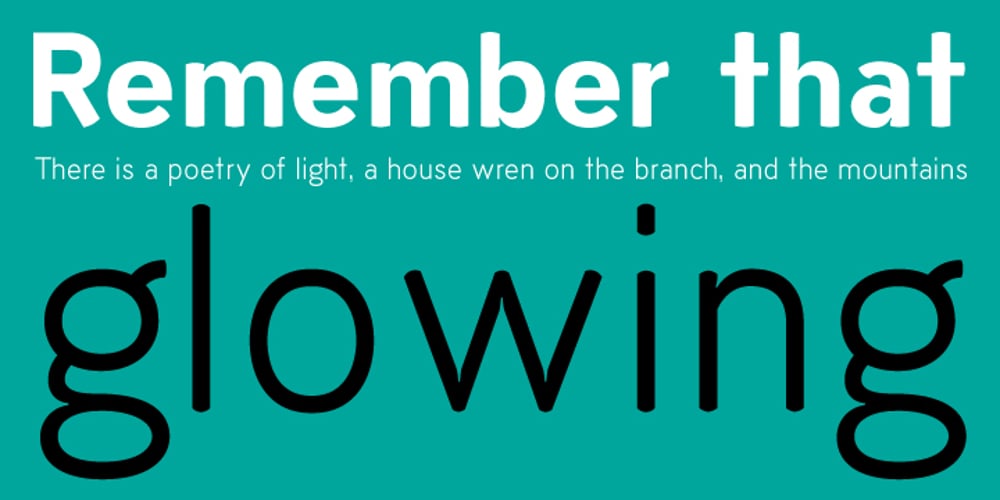
Medina Gothic Font Family was designed by published by Design is Culture. Medina Gothic contains 3 styles and family package options. Medina Gothic is a three-weight sans serif inspired by Latin American moderne. It was designed in response to the 2002, Altos de Chavon design conference in The Dominican Republic, which celebrated utilitarian driven gestures in graphic design. “There’s a rigor to Medina Gothic that takes care of all sorts of tenets of a hard-working, highly legible, objective font. But at the same time, it’s human. All the curved terminals and open counter forms make for a sort of kindness. For all the discipline, it doesn’t sacrifice its friendliness.” – William Morrisey, Professor of Typography, Parsons The New School for Design.